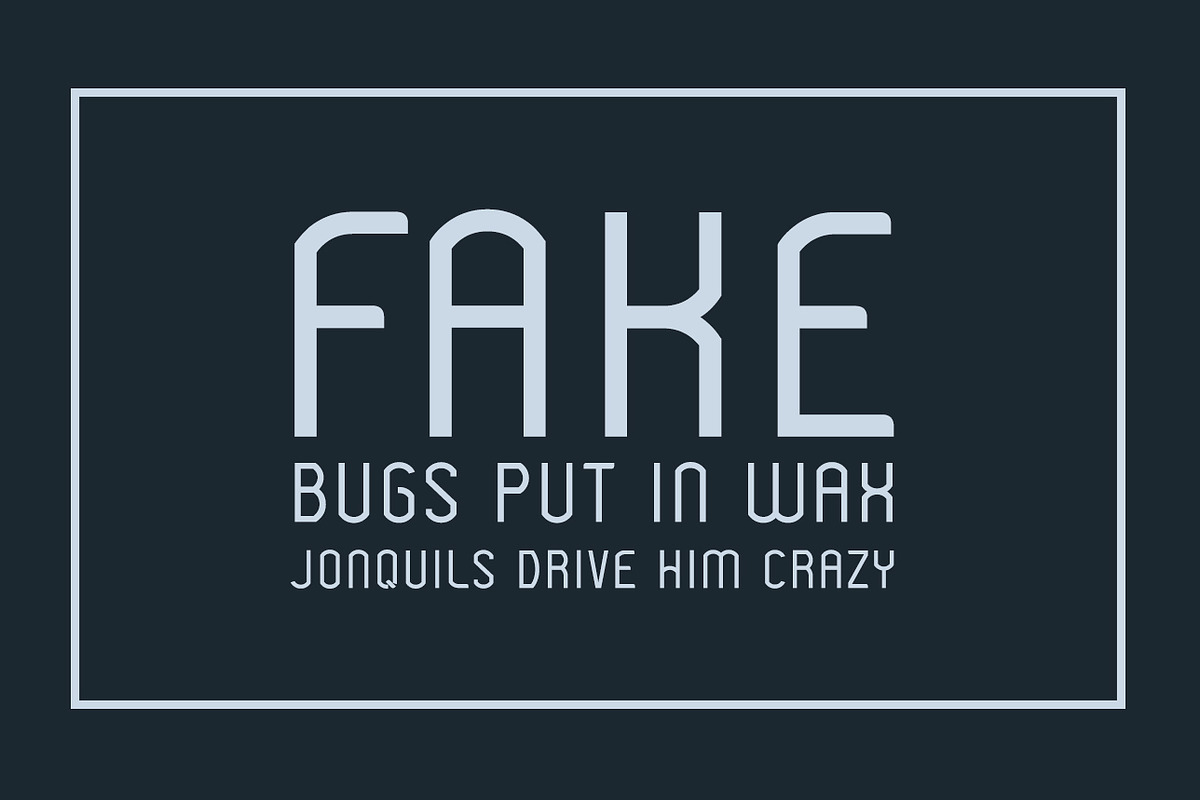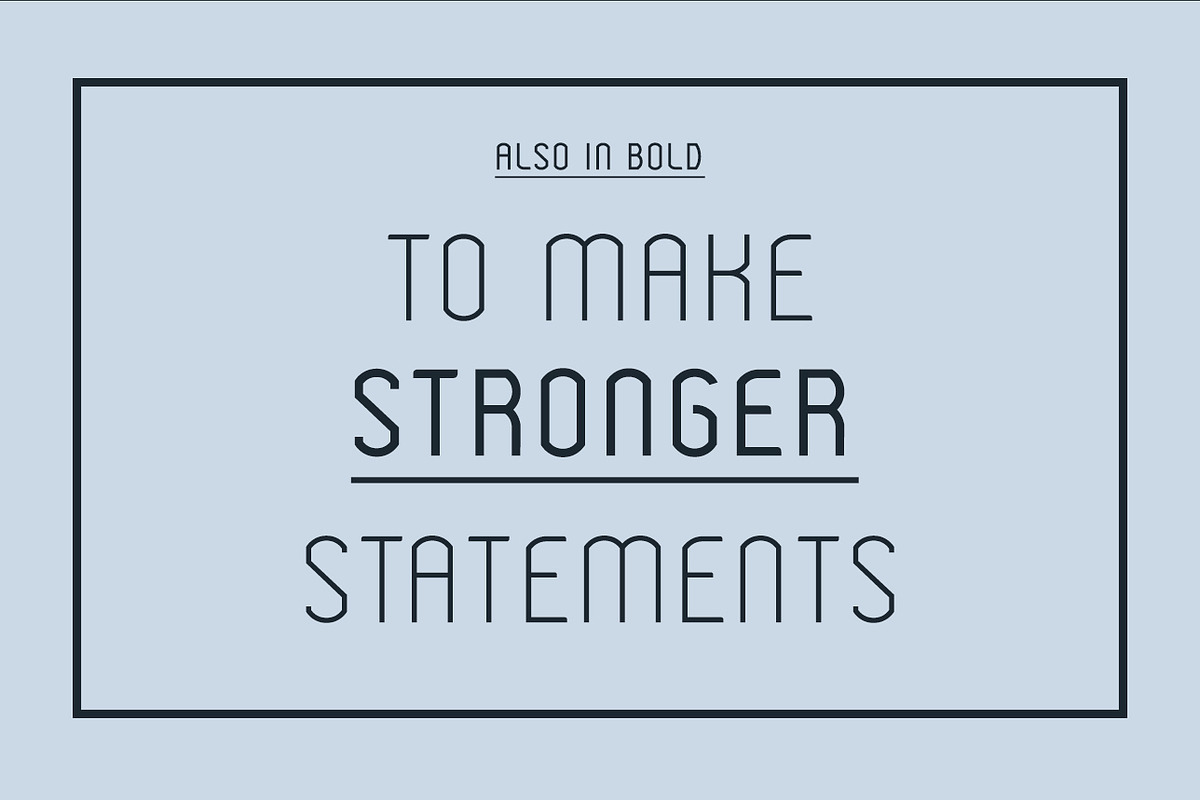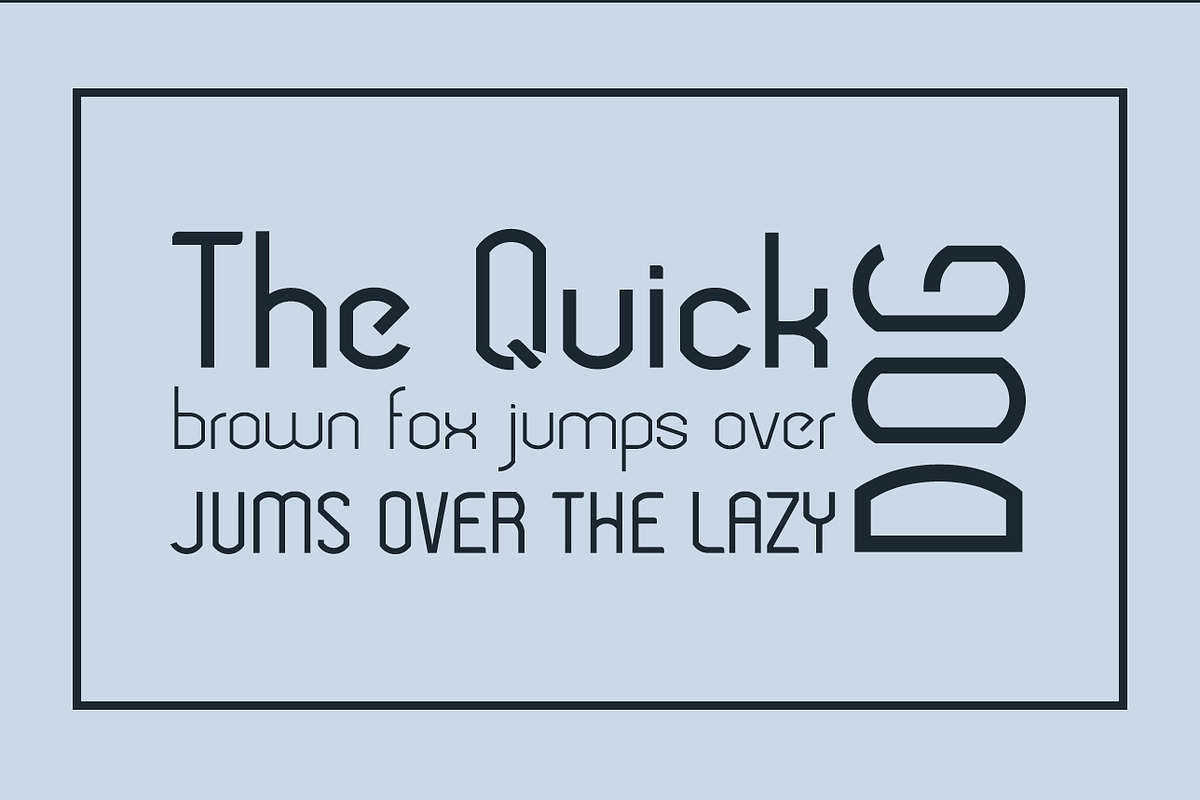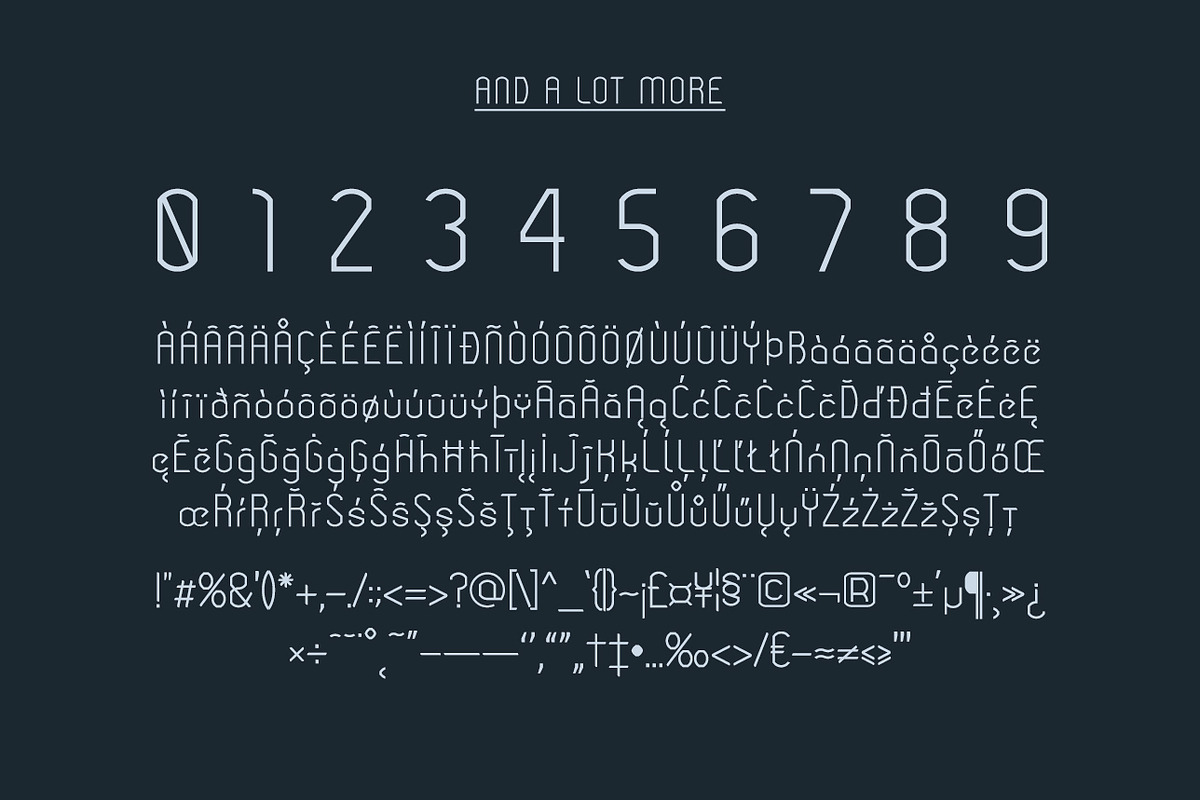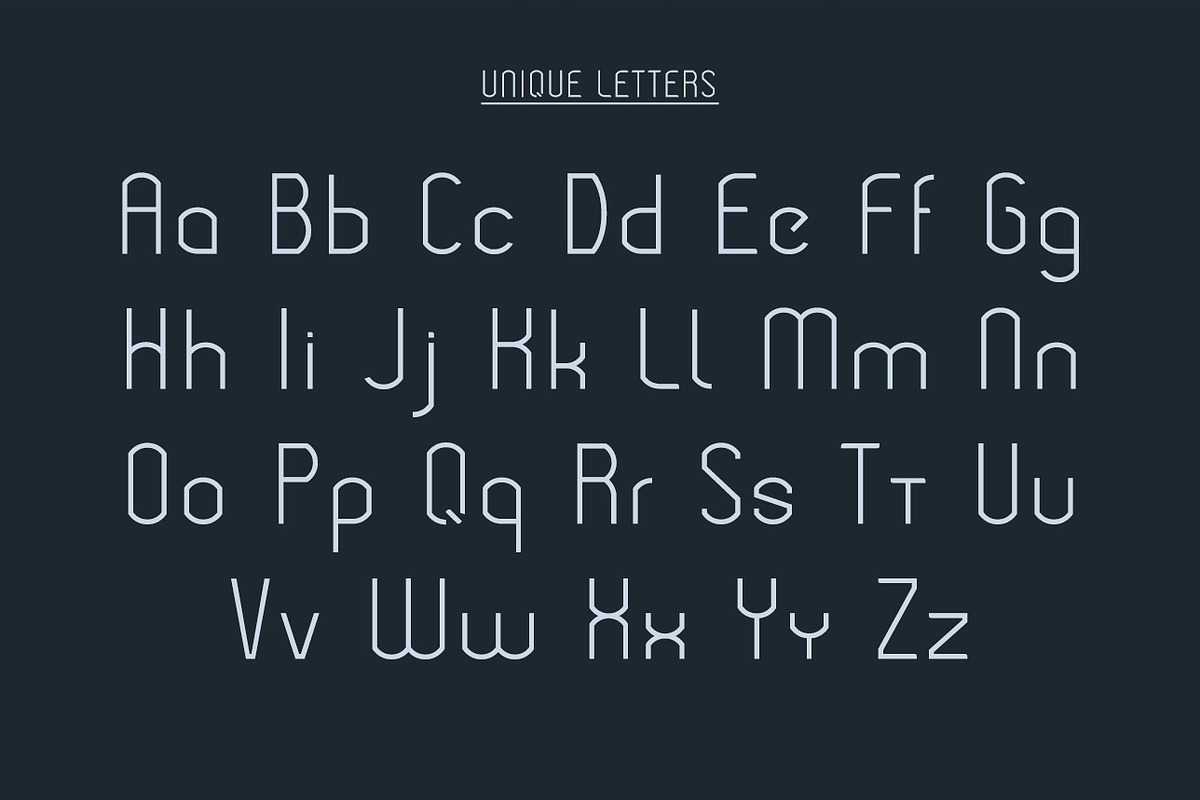
Modeka Extended Font
Modeka Extended Font by Wild Ones is a font selected for branding, posters, packaging, typography.
- Modeka extended is a unique style modern font, it comes in two weights regular and bold, it has all the standard latin and latin extended ch
- Modeka Extended Regular
- Modeka Extended Bold
Modeka Extended Font by Wild Ones fits naturally into Branding, posters, packaging, typography.